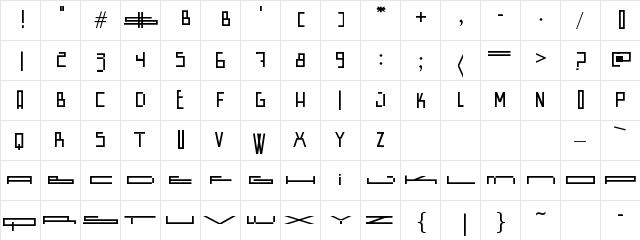
Wide Square Regular
Design Context for Wide Square Typeface
Wide Square offers clean, dependable letterforms without strong stylistic allegiance, making it a practical choice for designers who need flexibility.
Pro Tip: Use Wide Square in both headline and body roles to test its range before committing to a single application.